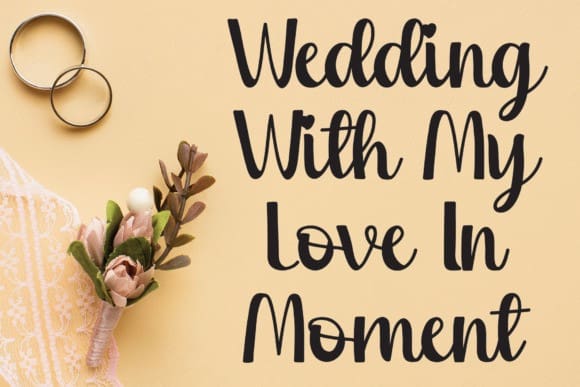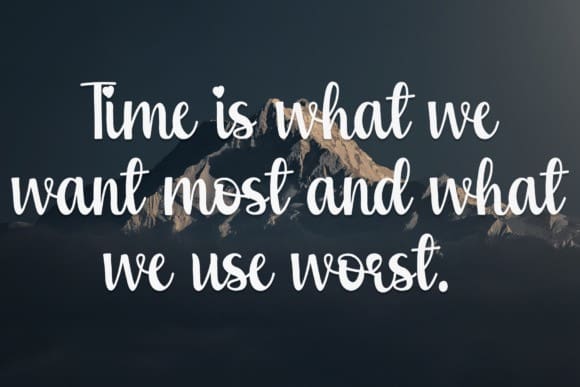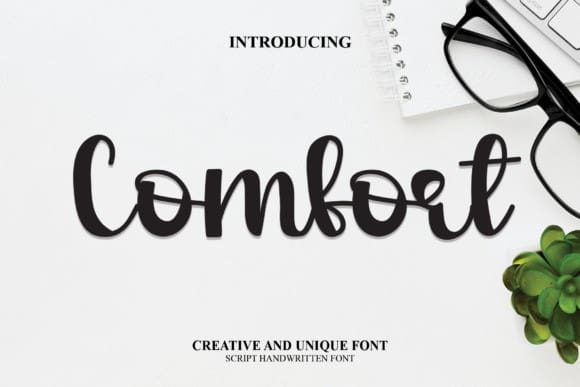
Comfort Script Font
Comfort Script Font is a sweet handwritten font is an elegant and dainty handwritten font that features sweet and delicate swashes. This original look will appeal to a wide range of crafty ideas, from letterheads and titles, to stationery.